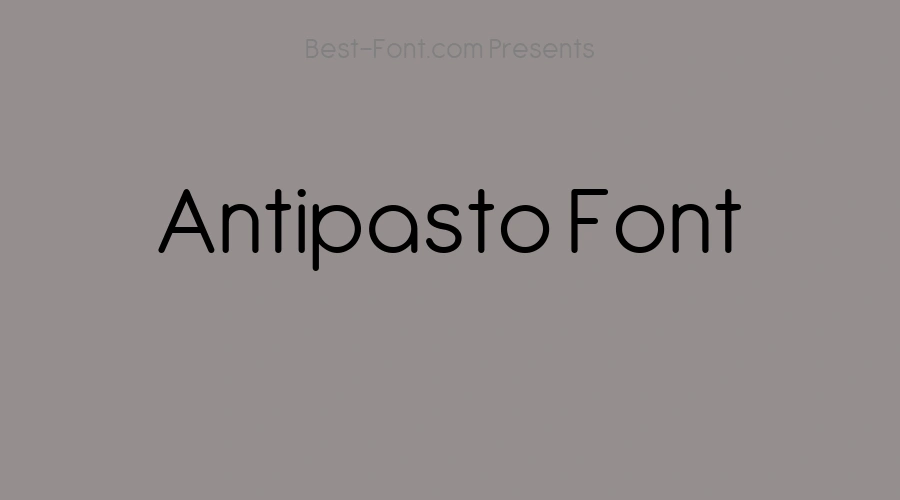
About Antipasto Font
Designed with precision, Antipasto Font merges concave curves with sophistication in every character. This versatility makes it particularly effective for packaging hero, where value and consumer connection directly impact communication quality. Each letterform demonstrates meticulous craftsmanship.
Technical excellence shines through elements like ink flow effects and display figures, enhancing typographic versatility. In brochures settings, Antipasto Font proves its worth through superior numerical alignment. The thoughtful execution of stroke modulation and emotional appeal ensures professional results.